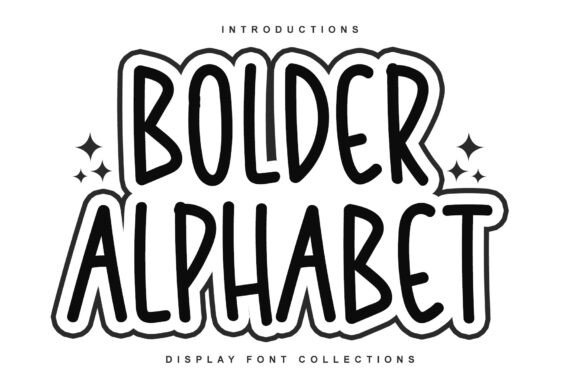
Bolder Alphabet Font: The Perfect Choice for Playful and Energetic Designs
In the world of typography, fonts play a crucial role in conveying the tone and personality of a design. When it comes to creating playful and energetic designs, a bold and attention-grabbing font is essential. This is where the Bolder Alphabet Font comes in – a fun and modern display font that is perfect for kids’ designs, posters, social media graphics, branding, and any project that needs a cheerful and energetic vibe.
What is Bolder Alphabet Font?
Bolder Alphabet Font is a playful and bold display font characterized by its thick, attention-grabbing strokes and fun outline detail. Its approachable and modern style makes it a versatile choice for creative designs. The font’s bold and playful nature makes it perfect for designs that require a high level of energy and enthusiasm.
Key Features of Bolder Alphabet Font
- Thick and attention-grabbing strokes: The font’s bold strokes make it perfect for designs that require a high level of visibility and attention.
- Fun outline detail: The font’s outline detail adds a playful touch to the design, making it perfect for kids’ designs and other playful applications.
- Approachable and modern style: The font’s modern style makes it a versatile choice for creative designs, while its approachable nature makes it perfect for designs that require a friendly tone.
- Perfect for digital and print designs: The font is suitable for a wide range of design applications, including kids’ designs, posters, social media graphics, branding, and more.
Usage Ideas for Bolder Alphabet Font
Bolder Alphabet Font is a versatile font that can be used in a wide range of design applications. Here are some usage ideas to get you started:
- Kids’ designs: The font’s playful and energetic nature makes it perfect for kids’ designs, including children’s books, educational materials, and kids’ websites.
- Posters and flyers: The font’s bold and attention-grabbing strokes make it perfect for posters and flyers that require a high level of visibility.
- Social media graphics: The font’s modern style and playful nature make it perfect for social media graphics, including Facebook posts, Instagram stories, and Twitter headers.
- Branding and logos: The font’s approachable and modern style makes it a great choice for branding and logos that require a friendly and approachable tone.
Benefits of Using Bolder Alphabet Font
Using Bolder Alphabet Font in your designs can have a range of benefits, including:
- Increased visibility: The font’s bold and attention-grabbing strokes make it perfect for designs that require a high level of visibility.
- Improved engagement: The font’s playful and energetic nature can help to improve engagement and interaction with your design.
- Enhanced creativity: The font’s modern style and playful nature can help to enhance creativity and inspire new ideas.
- Versatility: The font’s approachable and modern style makes it a versatile choice for creative designs.
Tips and Tricks for Using Bolder Alphabet Font
Here are some tips and tricks for using Bolder Alphabet Font in your designs:
- Use it sparingly: The font’s bold and attention-grabbing strokes can be overwhelming if used excessively. Use it sparingly to create emphasis and draw attention.
- Pair it with other fonts: The font’s modern style and playful nature make it a great choice for pairing with other fonts. Experiment with different font combinations to create a unique look.
- Experiment with colors: The font’s bold and attention-grabbing strokes make it perfect for use with bright and bold colors. Experiment with different color combinations to create a unique look.
Bolder Alphabet Font is a playful and bold display font that is perfect for designs that require a high level of energy and enthusiasm. Its approachable and modern style makes it a versatile choice for creative designs, while its thick and attention-grabbing strokes make it perfect for designs that require a high level of visibility. With its wide range of usage ideas and benefits, Bolder Alphabet Font is a great choice for designers looking to add a playful and energetic touch to their designs.